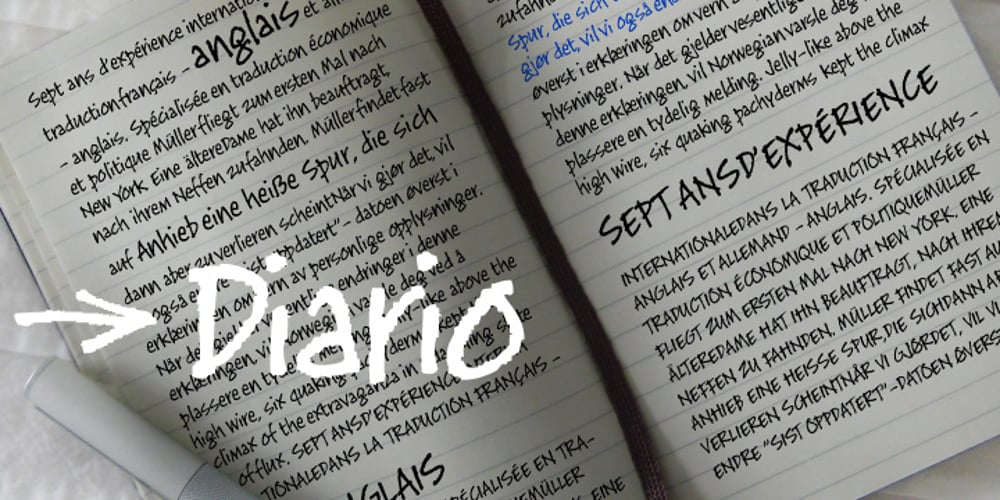
Diario Font Family was designed by published by Wilton Foundry. Diario contains 1 styles and family package options. I am a huge Moleskine notebook fan – This font is named Diario to celebrate everyone that uses a journal and everyone that appreciates a cool handwriting style. Diario reflects this tactile paper- ink plus designer convergence. In the meantime, be inspired and write your own journal!